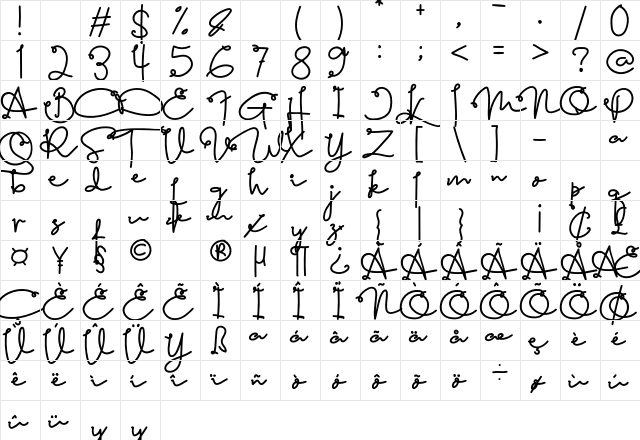
Dream Home Regular
Design Context for Dream Home Typeface
Dream Home is a composed and adaptable typeface that performs quietly and consistently across a wide range of design contexts.